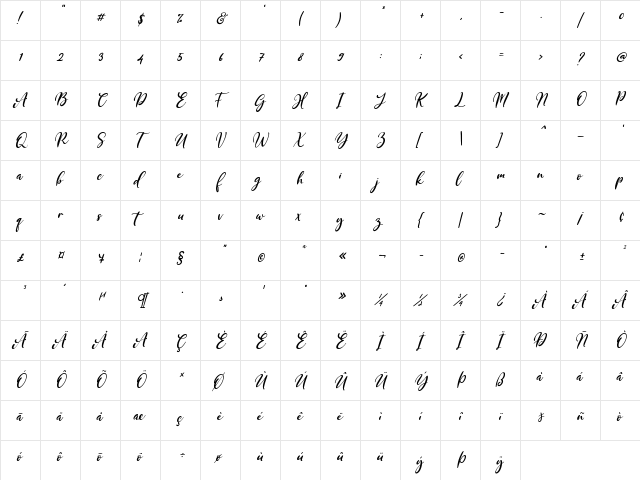
Purple Bougenville Italic Regular
Design Context for Purple Bougenville Italic Typeface
Purple Bougenville Italic is a composed and adaptable typeface that performs quietly and consistently across a wide range of design contexts. Its italic angle brings a sense of urgency and motion to the letterforms.
Pro Tip: Try Purple Bougenville Italic for annotation and caption copy alongside an upright companion — the contrast in angle creates a dynamic but ordered typographic system.